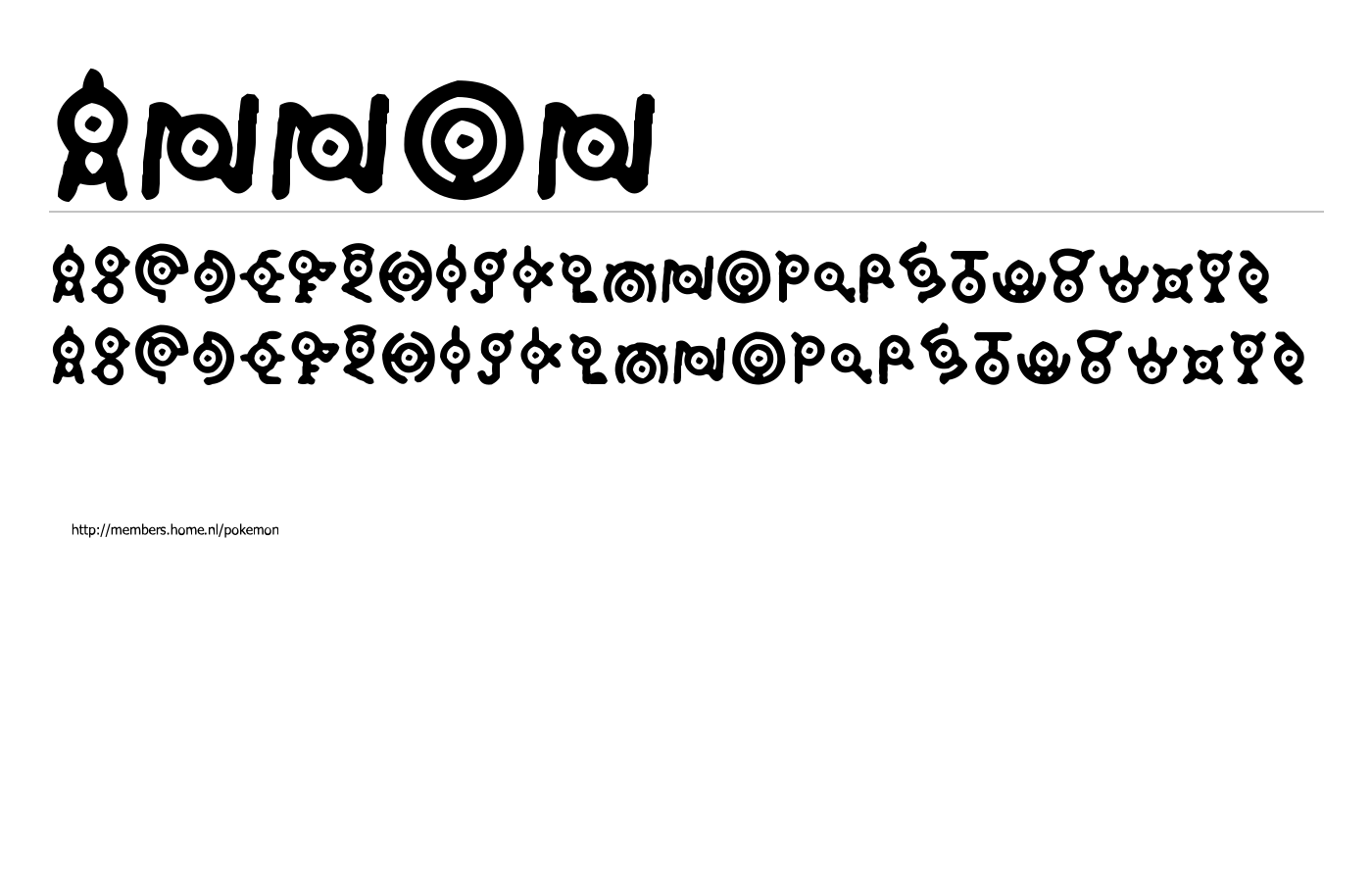
Annon Font is a highly decorative and unique symbol-based typeface with an abstract, playful character. Its bold, rounded shapes and intricate patterns give it an enigmatic and artistic feel, making it ideal for creative projects, logos, or designs that aim to stand out with a distinctive, almost cryptic style. This font works best for display use rather than body text, where its ornamental qualities can truly shine and capture attention.
Annon Font